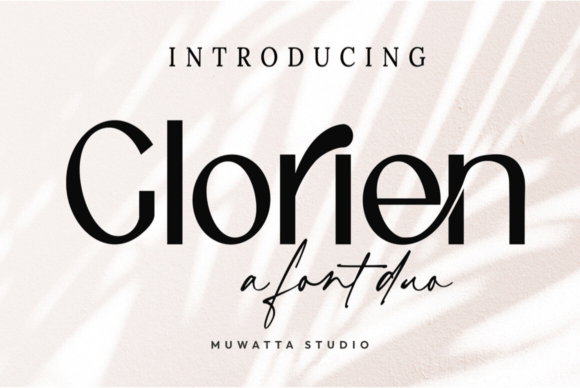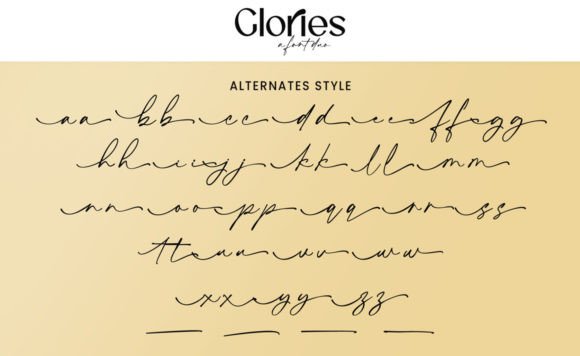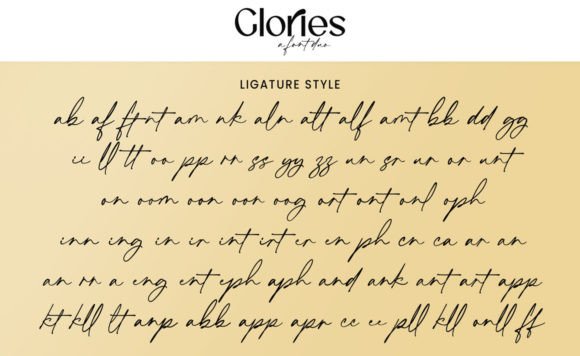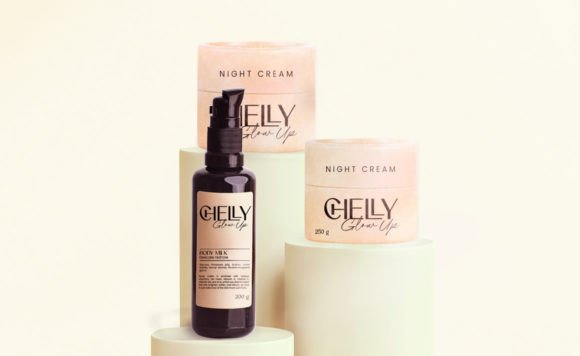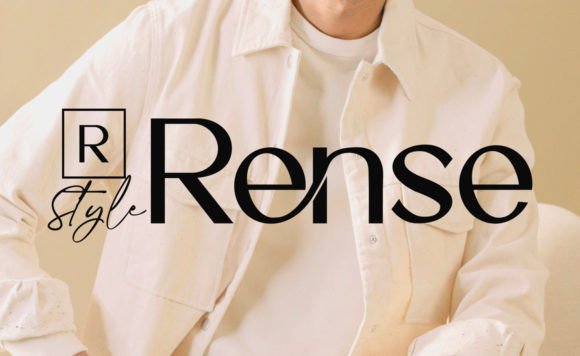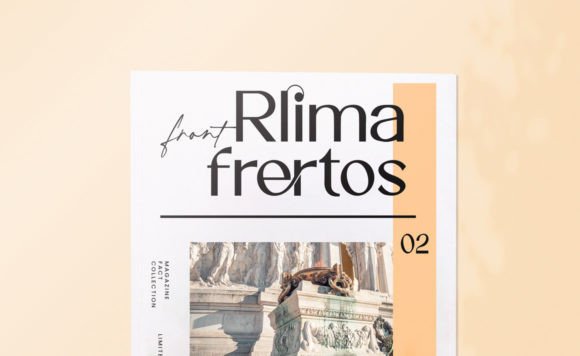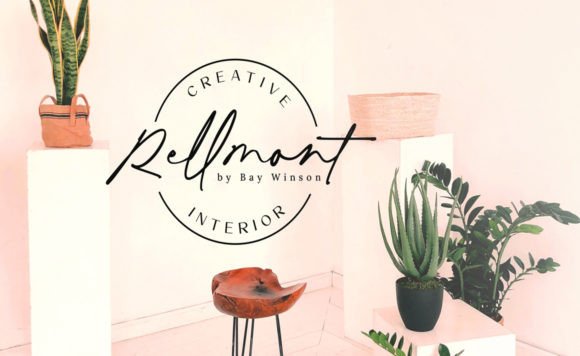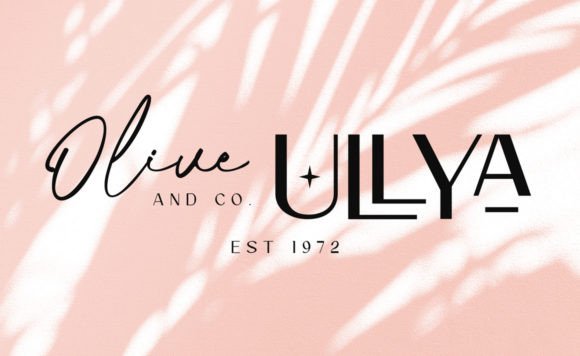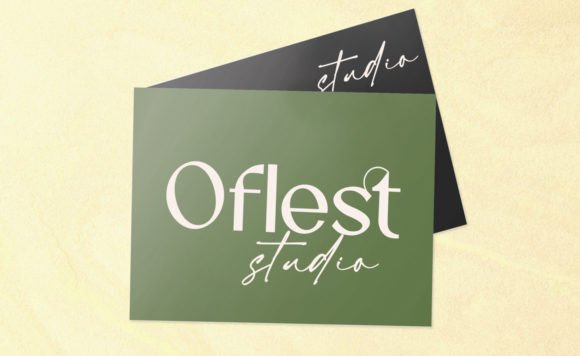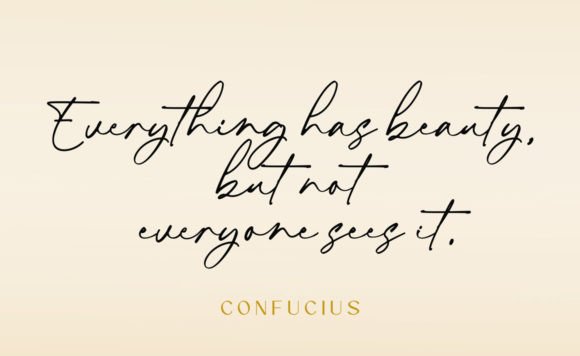
Glorien Duo Font
About Glorien Duo Font
Introducing Glorien Duo, a captivating combination of stunning sans fonts and scripts designed to complement each other with an elegant and luxurious look. This font duo is more than just a typographic choice; it’s a powerful asset that has the potential to enhance any creation, regardless of the topic or theme.
Glorien Duo stands out for its versatility and the seamless harmony between the sans fonts and scripts. This combination allows you to create sophisticated designs that effortlessly blend elegance and style. Whether you’re working on branding, invitations, posters, or any other creative project, Glorien Duo adds a touch of refinement to your creations.
The PUA encoding of Glorien is a noteworthy feature, providing easy access to all glyphs and swashes. This ensures that you can fully explore and customize the font to suit your design preferences. The inclusion of these elements opens up a world of creative possibilities, allowing you to infuse your projects with unique details and flourishes.
Envision Glorien Duo as the perfect pair, elevating your font library to new heights. Picture it gracing branding materials with an air of luxury, adding a touch of sophistication to your designs. Whether it’s the clean lines of the sans fonts or the graceful curves of the scripts, Glorien Duo becomes a design asset that enhances the visual appeal of your diverse creative endeavors.
In summary, Glorien Duo is more than a font; it’s a dynamic duo that brings elegance and luxury to your projects. Embrace its versatility confidently, knowing that it can be the key to creating stunning and refined designs. Let Glorien Duo be the choice that elevates your creations and leaves a lasting impression on your audience.